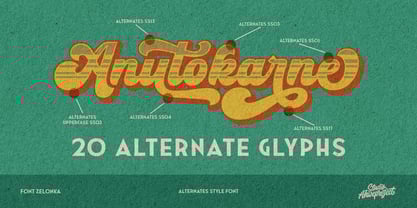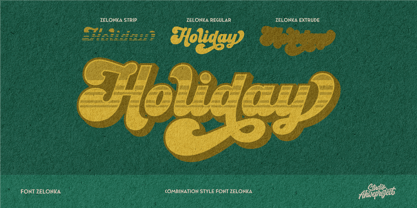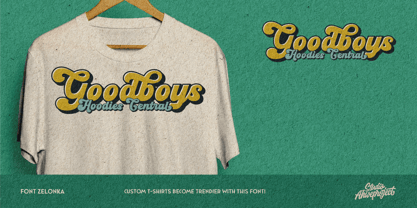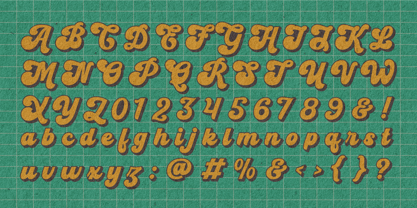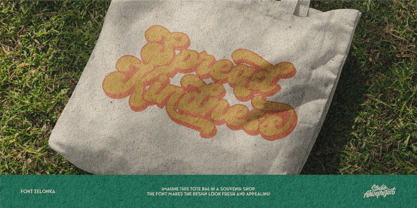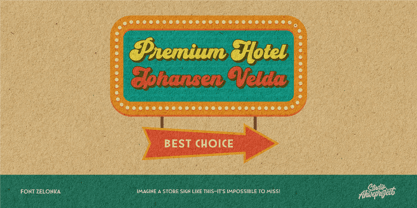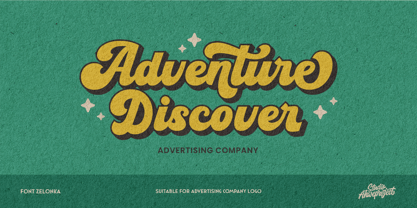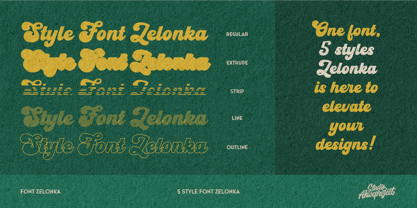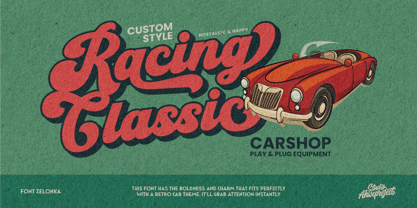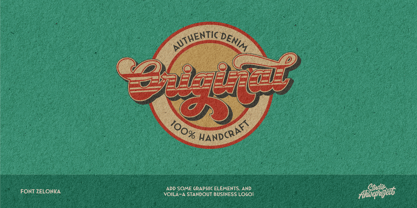
Zelonka
by ahweproject
The Zelonka Font Family was designed by Dida Ahluddin and published by ahweproject. Zelonka contains 5 styles and family package options. More about this family
Introducing The Zelonka Script, a bold retro font with an unmistakable vintage charm. Perfectly designed to bring a groovy, nostalgic vibe to your projects, this font features smooth curves, vibrant letterforms, and dynamic swashes. With 5 unique styles to choose from, it’s ideal for posters, logos, branding, packaging, headlines, and more. Whether you’re working on a throwback-themed design or simply want to make your text stand out, The Zelonka Script ensures maximum visual impact with its playful and versatile appeal.
Features :
• Uppercase & lowercase
• Numbers and punctuation
• Multilingual
• Alternates
Designers: Dida Ahluddin
Foundry: ahweproject